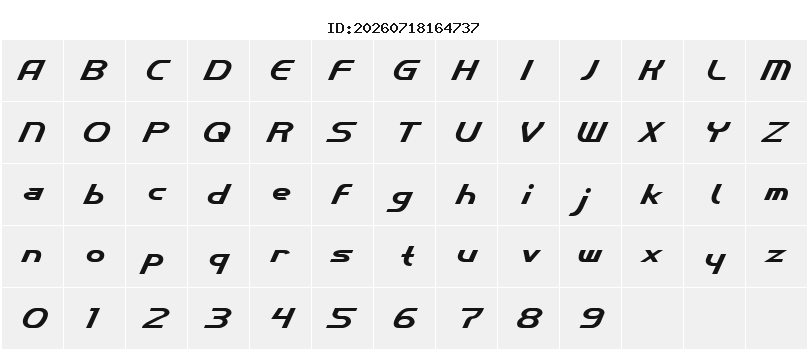
Cybertron Metals Preview
• Font Name: Cybertron Metals
• Full Font Name: Cybertron Metals Normal
About Cybertron Metals.ttf
Cybertron Metals.ttf is a modern, elegant sans-serif font designed for ultimate readability and visual harmony. Perfect for branding, headlines, web design, and print materials.